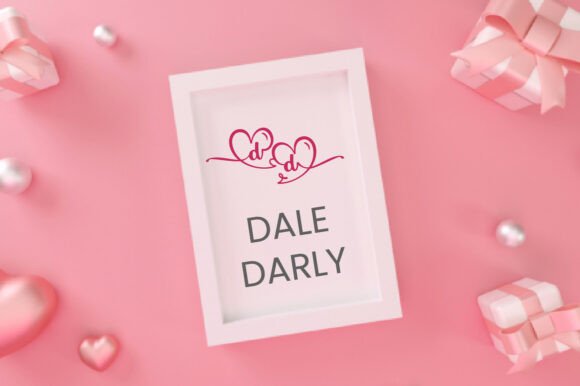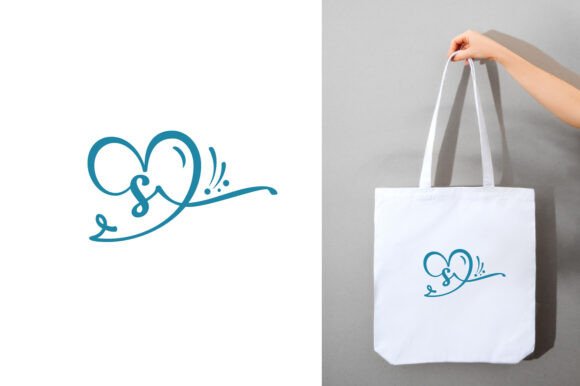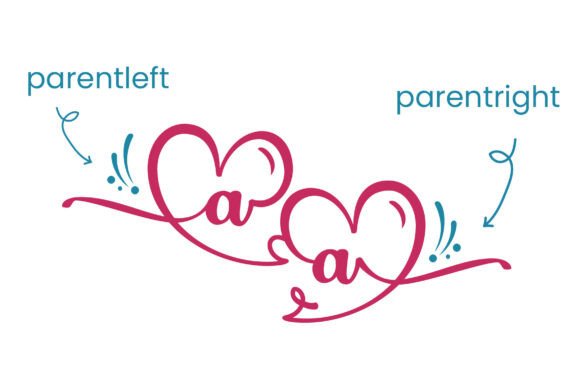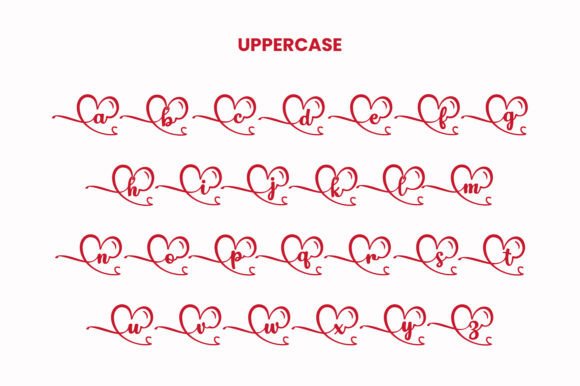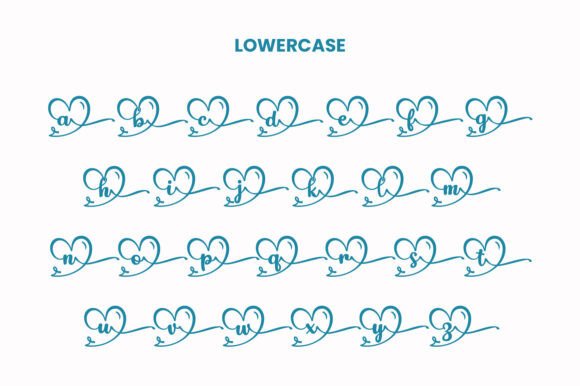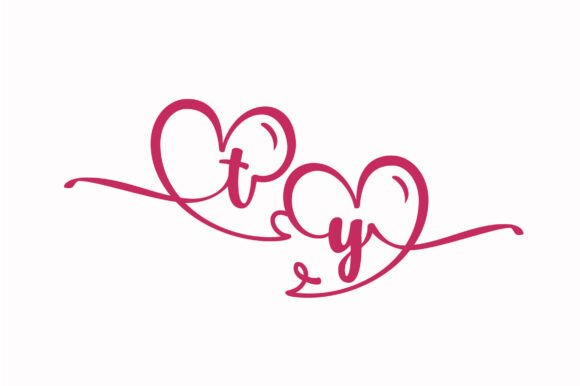
Introduction to Love Couple Decorative Font Font
Fonts play a crucial role in design, and the Love Couple Decorative Font font is a typeface that brings both character and versatility to any project. Whether you’re working on a branding project, a website, or a print design, the Love Couple Decorative Font font offers a unique style that can elevate your work.
Introducing Love Couple Decorative β a font that spells out romance in every curve and arc.
This charming font paints a love story with its unique heart-themed design integrated into both the uppercase and lowercase letters Every alphabet in this playful font is meticulously crafted to radiate warmth and affection, making it an ideal choice for romantic designs, wedding invitations, or Valentineβs Day cards.
Key Features of Love Couple Decorative Font Font
Why Choose Love Couple Decorative Font Font?
The Love Couple Decorative Font font is more than just a typeface β it’s a design tool that helps you communicate your message with style and clarity. Its unique character set and versatile design make it suitable for a wide range of applications, from elegant invitations to bold headlines.
With its carefully crafted letterforms and balanced proportions, the Love Couple Decorative Font font ensures readability and visual appeal across all mediums.
What makes Love Couple Decorative Font font special?
The Love Couple Decorative Font font stands out with its unique design, exceptional readability, and versatility across various design applications.